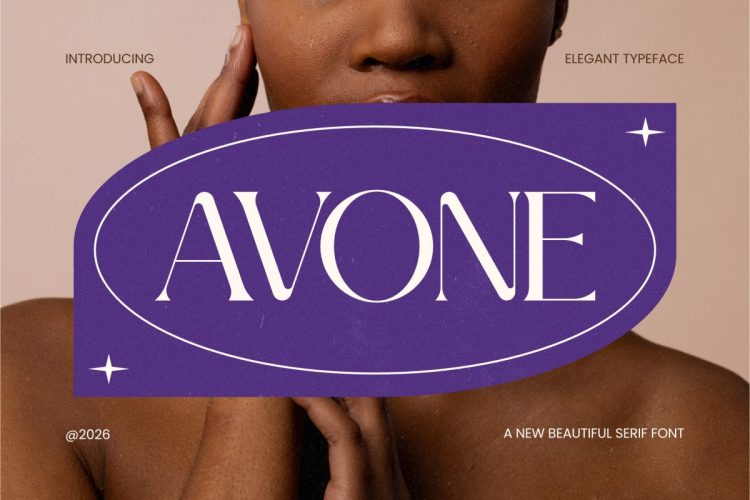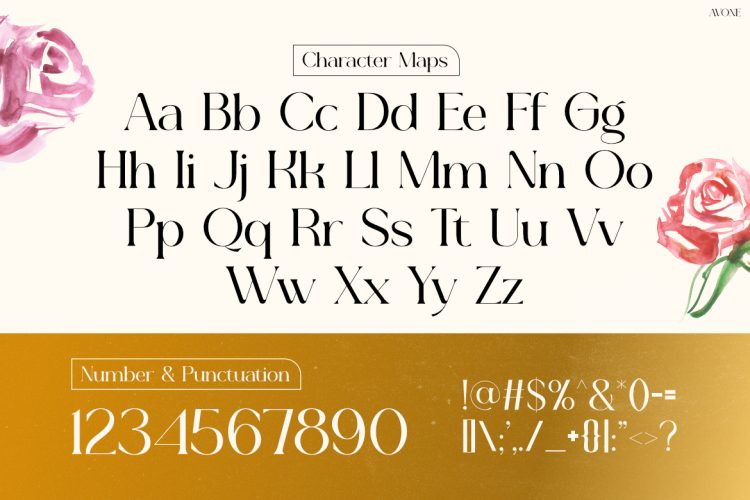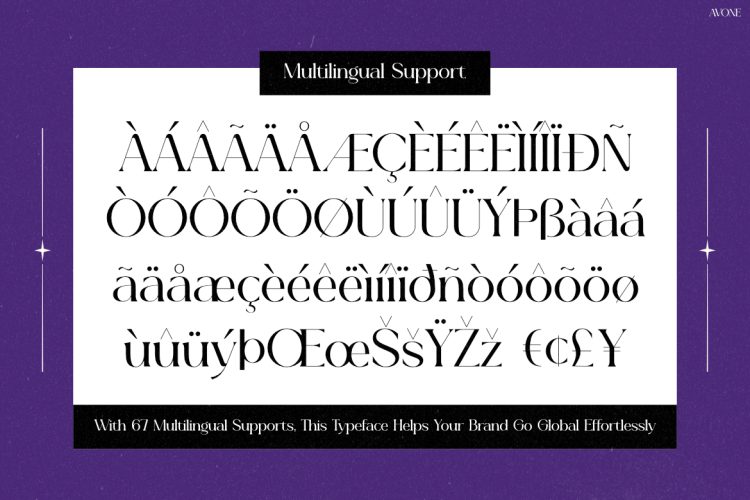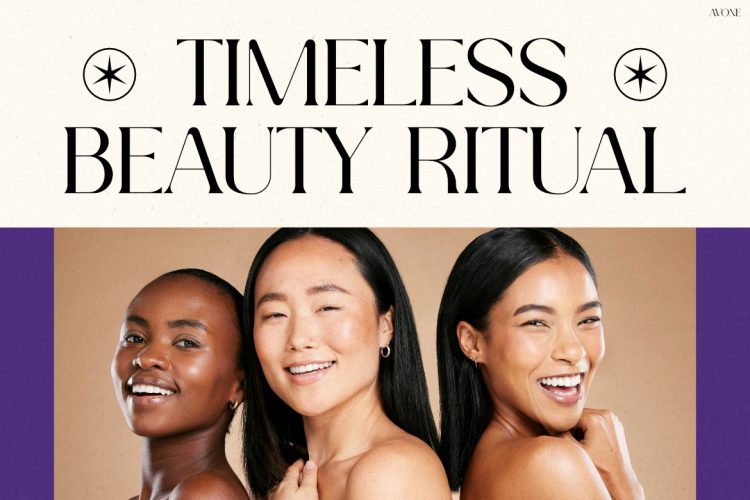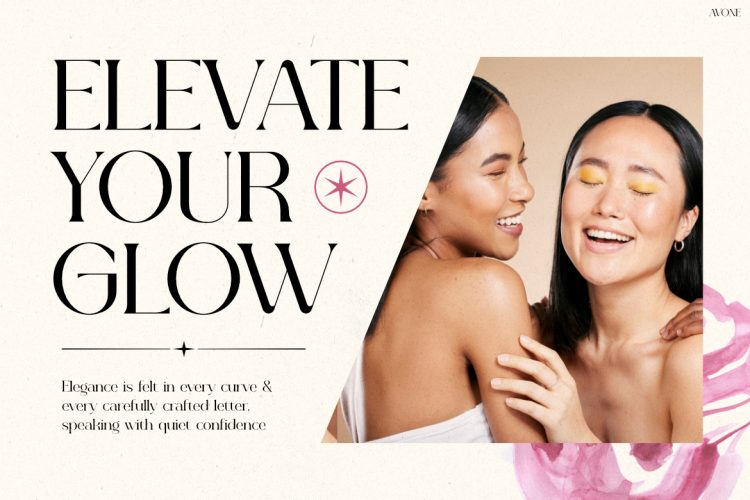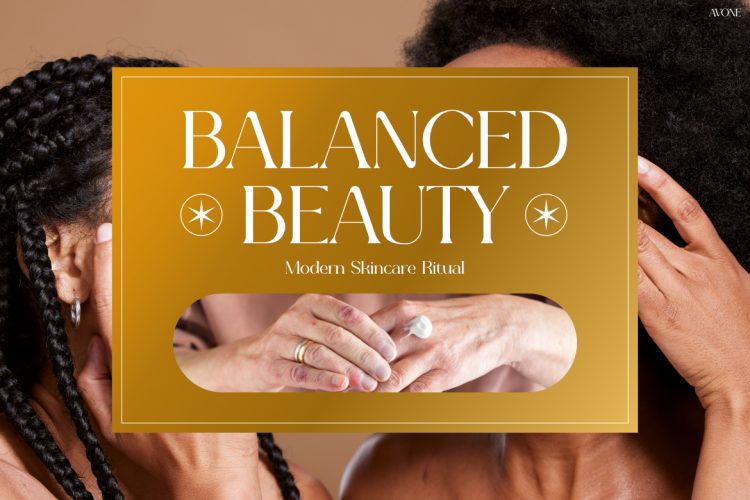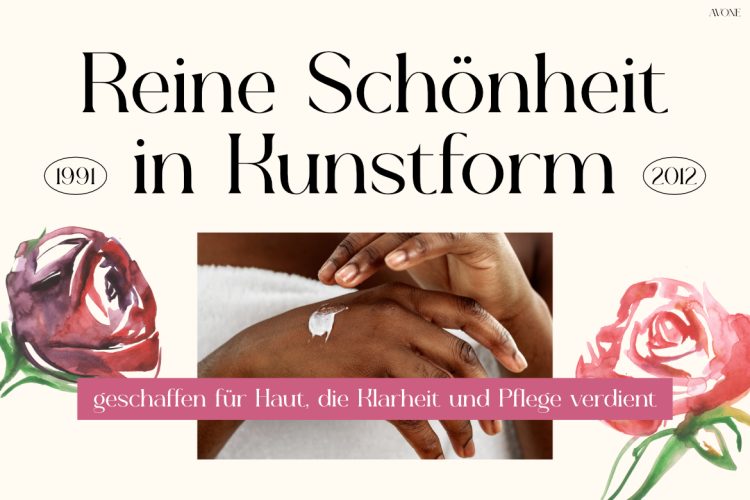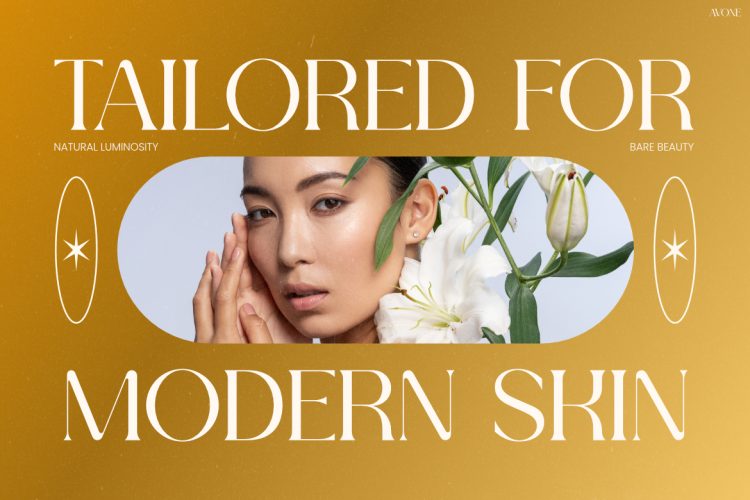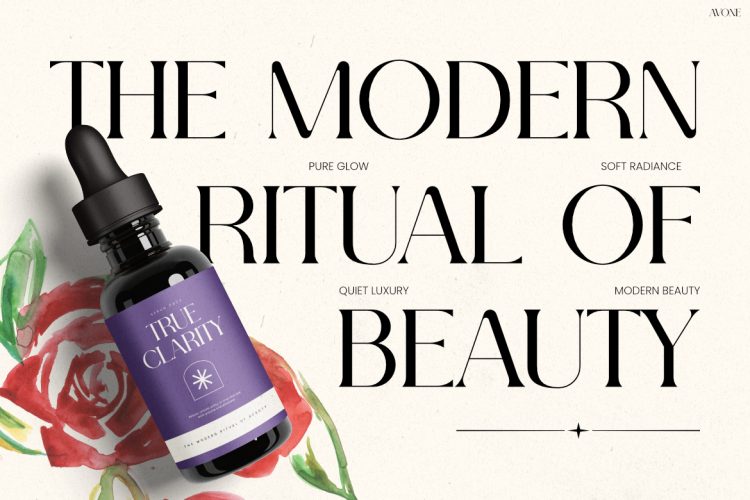
Avone โ Elegant Beauty Instagram Serif Font
Instagram Font Avone is a refined and luxurious serif typeface crafted to elevate modern beauty branding with timeless elegance. Its high-contrast strokes, graceful curves, and stylish ligatures create a sophisticated visual identity that instantly feels premium. Moreover, the font blends classic editorial aesthetics with contemporary minimalism, making every design look polished and high-end. From the previews, you can see how seamlessly it adapts to skincare campaigns, cosmetic promotions, and lifestyle branding. In addition, its balanced letterforms and artistic alternates enhance readability while maintaining a distinctive personality. With support for 67 languages, it ensures global usability without compromising style.
Instagram Font Avone delivers a perfect harmony between luxury and clarity. The font features elegant uppercase characters, smooth lowercase forms, and beautifully crafted multilingual glyphs. As a result, it works flawlessly across various visual compositionsโfrom bold headlines to delicate captions. Furthermore, its versatility allows designers to create cohesive branding systems, social media posts, and marketing visuals with ease. Whether used on minimal layouts or image-heavy designs, Avone consistently adds a refined and professional touch.
This font is ideal for beauty brands, skincare products, cosmetic labels, fashion designers, influencers, and creative agencies. Additionally, it suits entrepreneurs building Instagram-based businesses, luxury product packaging, magazine layouts, and aesthetic content creators. If your goal is to communicate elegance, softness, and premium quality, Avone is a strong visual asset that aligns perfectly with modern branding trends.
If you want to transform your designs into visually captivating and high-end compositions, Instagram Font Avone is the right choice. Its aesthetic strength and global language support make it not just a font, but a branding tool that sells. Upgrade your visuals today and create a lasting impression that feels both modern and timeless.